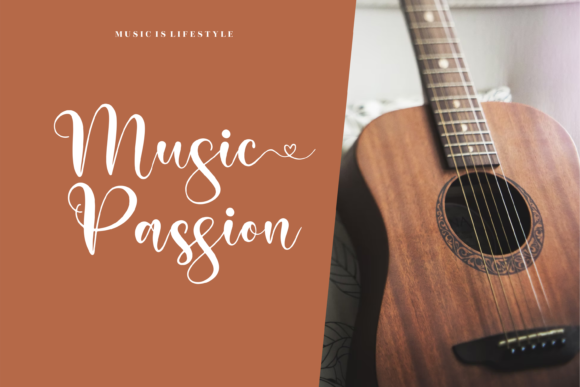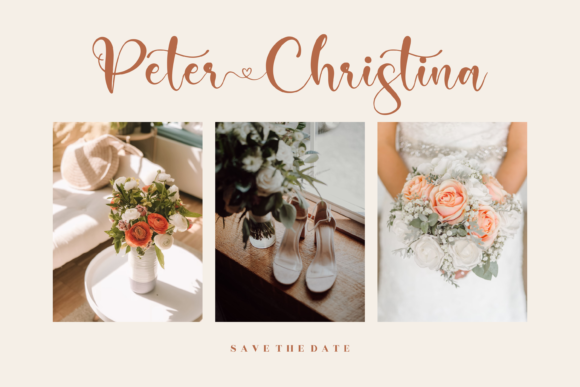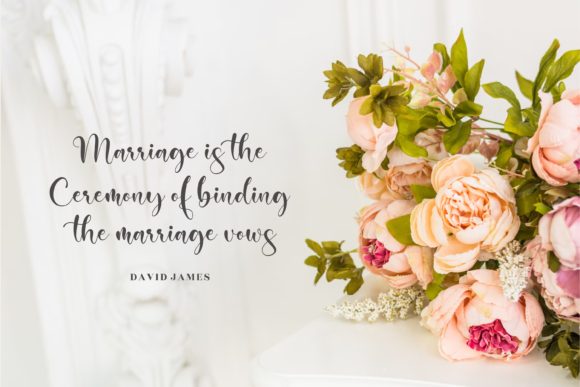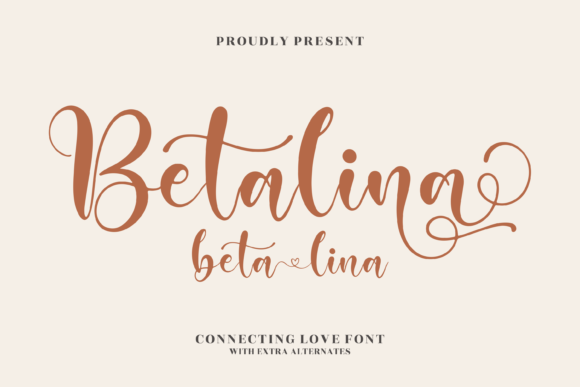
The Designer’s Delight: A Deep Dive into Betalina Font
I’ll never forget the time I was working on a wedding invitation project, and my client asked for a font that was “romantic,” “luxurious,” and “whimsical” all at once. I scoured the internet, tried out countless fonts, but nothing seemed to fit the bill. That was until I stumbled upon Betalina Font. ✨
This beautiful calligraphy typeface has been a game-changer for my design projects, and I’m excited to share my experience with you. In this article, we’ll explore the ins and outs of Betalina Font, from its stunning features to its practical applications.
An Honest Review of Betalina Font
- ✨ Romantic and sweet calligraphy style that’s perfect for luxury designs
- ✅ PUA encoded for easy access to glyphs and ligatures
- 🎨 Highly versatile and adaptable to various design projects
While Betalina Font is an excellent choice for many design projects, there are a few things to keep in mind:
- ⚠️ Some users may find the font a bit too ornate or over-the-top for certain designs
- 🤔 Limited use of uppercase letters, which may require creative workarounds
- Experiment with different stylistic alternates and swashes to customize your design
The Story Behind Betalina Font
Betalina Font was designed with the intention of creating a luxurious, romantic typeface that would add a touch of elegance to any design project. Inspired by traditional calligraphy and hand-lettering, Betalina Font’s creator aimed to craft a font that would be both versatile and beautiful.
Q: What is PUA encoding, and how does it benefit Betalina Font?
A: PUA (Private Use Area) encoding allows designers to access a wide range of glyphs and ligatures, making it easier to create unique and customized designs with Betalina Font.
Q: Is Betalina Font suitable for body text or long-form content?
A: While Betalina Font is stunning, it’s best suited for headlines, titles, or short-form content. Its ornate nature may make it difficult to read in large blocks of text.